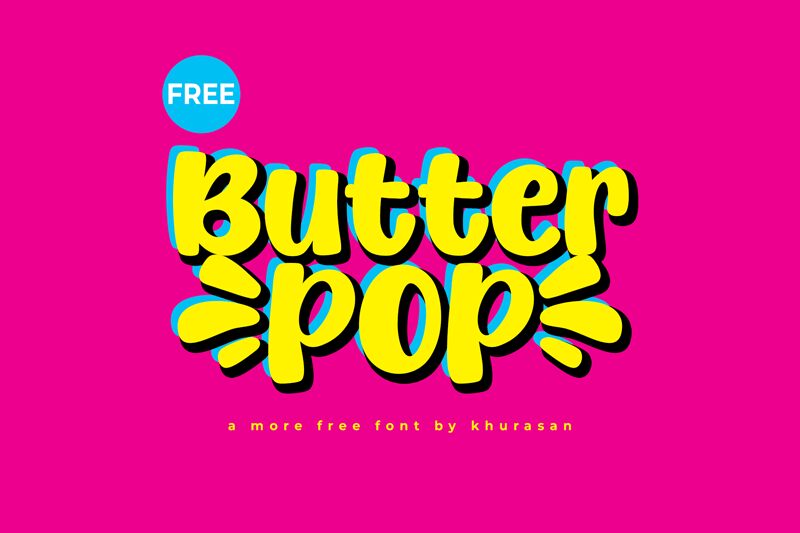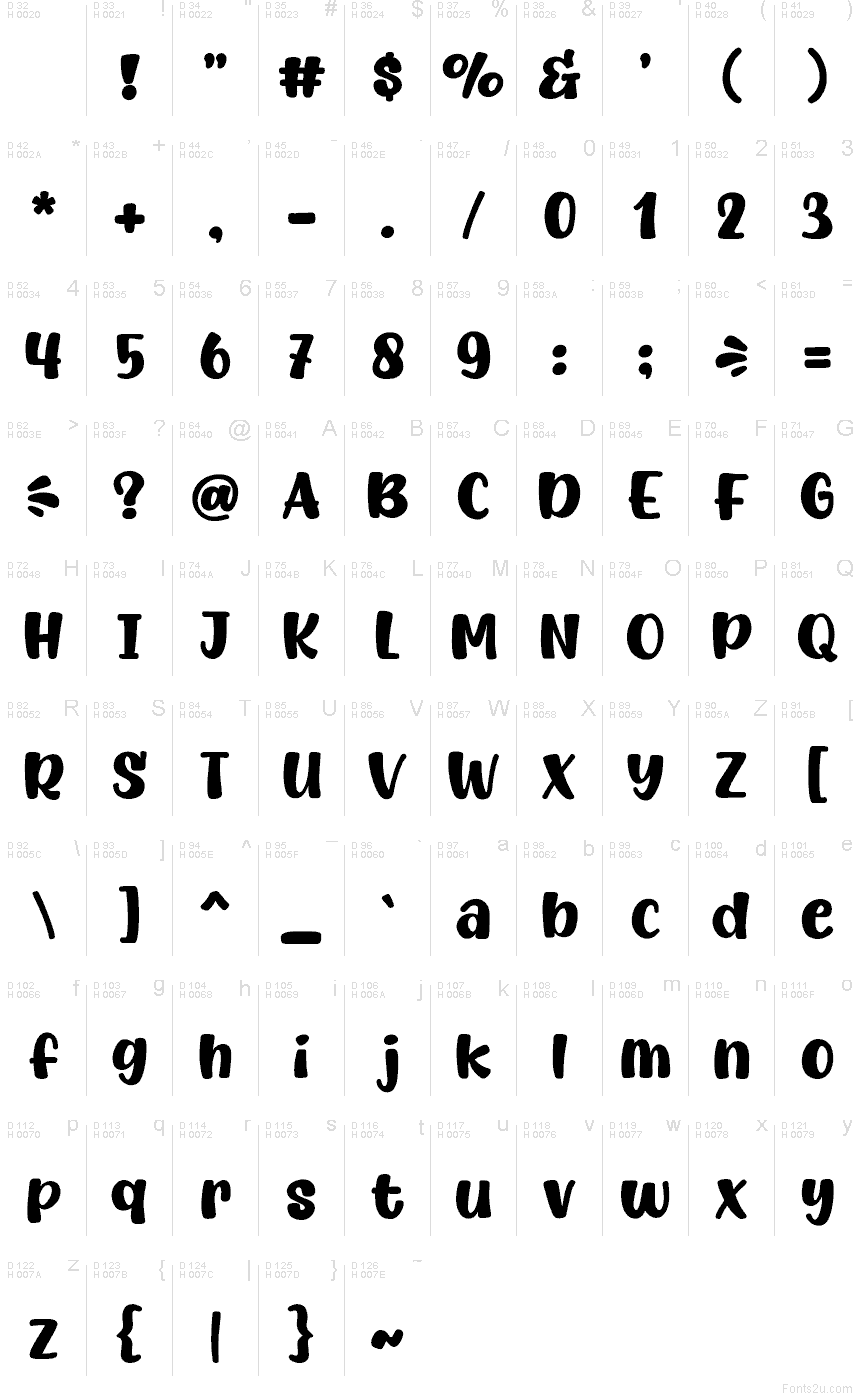
Butterpop font by Khurasan is a free cartoon display typeface with a soft, springy bounce that feels like letters piped from a frosting bag. Its bold, rounded shapes and inky black curves give every word a friendly, squeezable presence, while the tight rhythm keeps even long titles easy to read and full of energy. There’s a subtle hand-drawn wobble in the strokes that adds warmth without getting messy or chaotic.
Using Butterpop, your text instantly feels playful and welcoming, making this free font a natural fit for kids’ book covers, snack or toy packaging, character logos, YouTube thumbnails, party invitations, and cheerful social media graphics. It holds its charm at large sizes, so let it take center stage in headlines and pair it with a simple geometric sans for smaller supporting text.